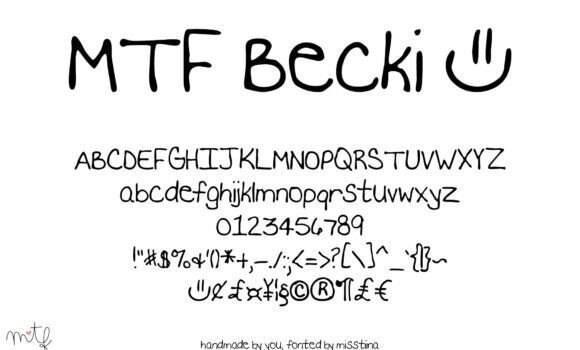
becki
Becki Font – Free Download Introduction to Becki Font Becki is a simple handwritten font featuring neat characters and a natural feel. 📌 Product Name Becki Font 👤 Author Miss Tiina 📂 Category Explore Add this lovely typeface to anything